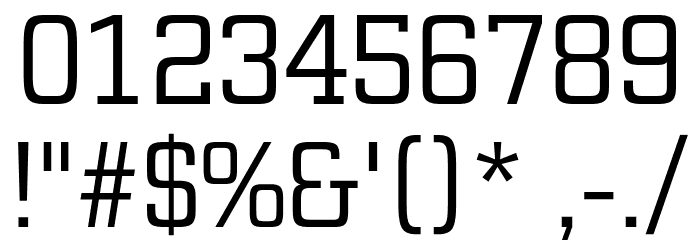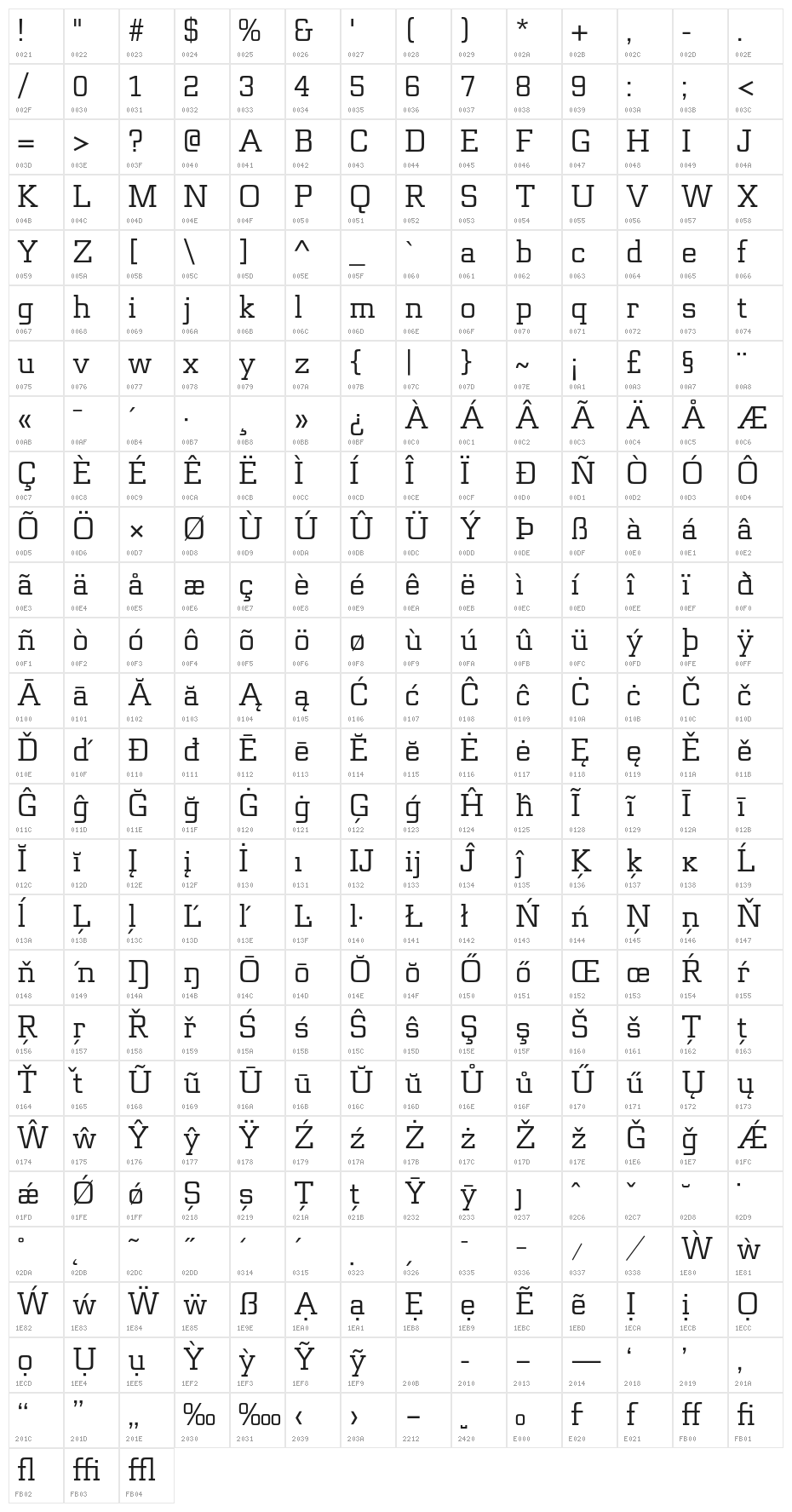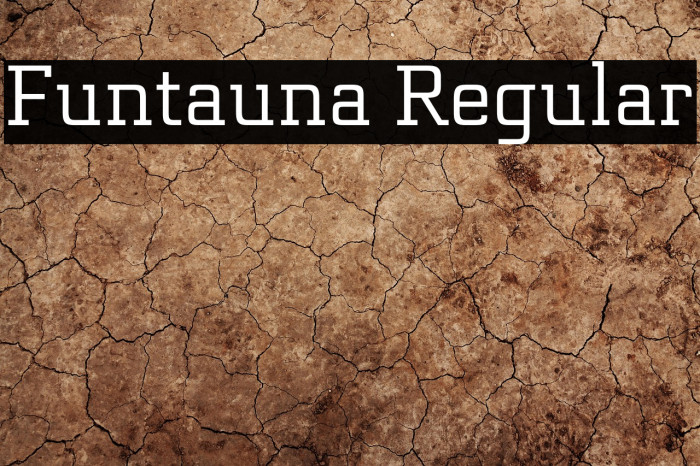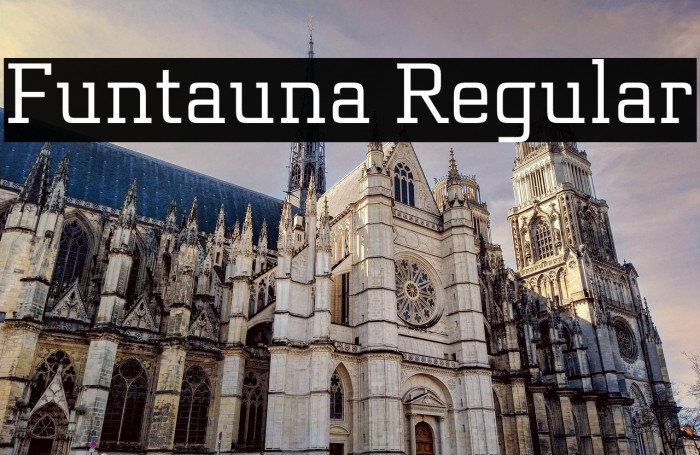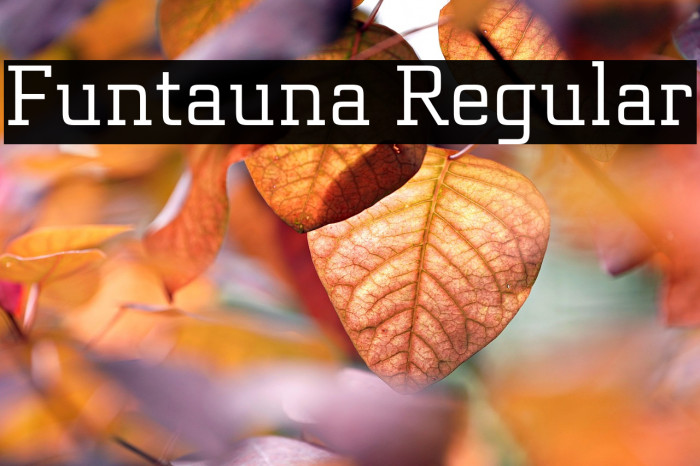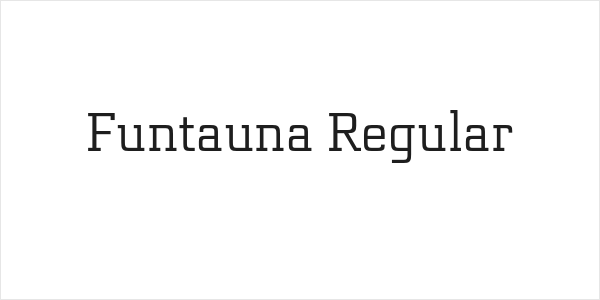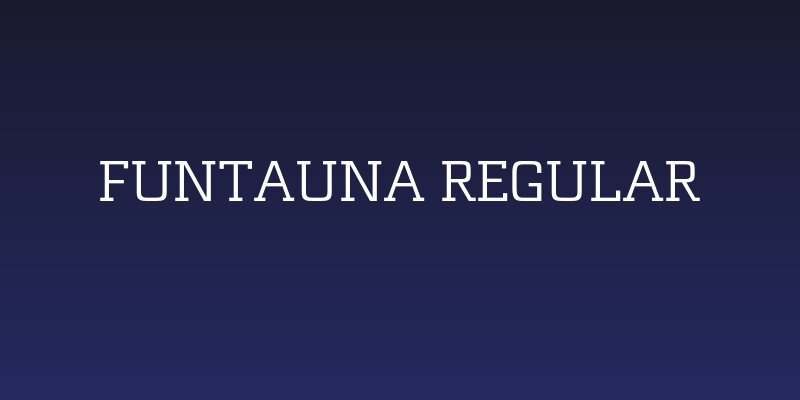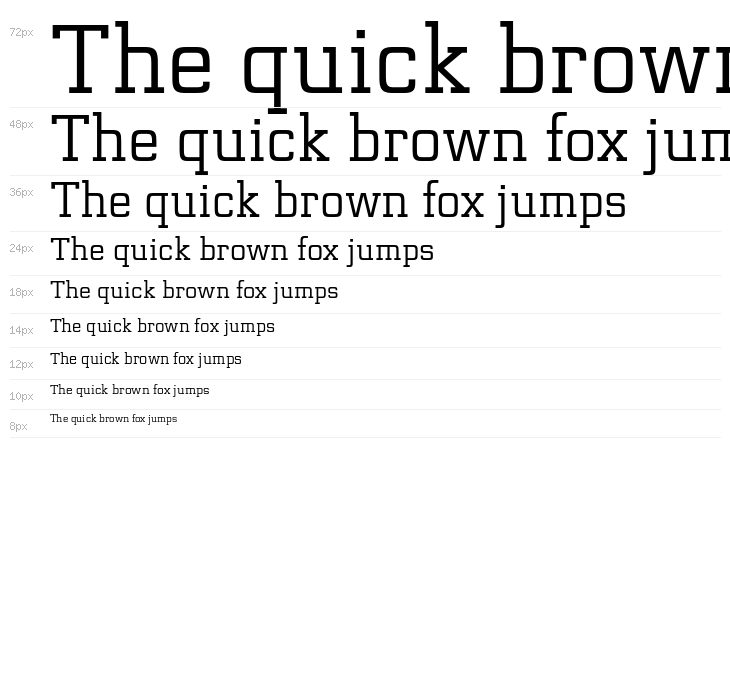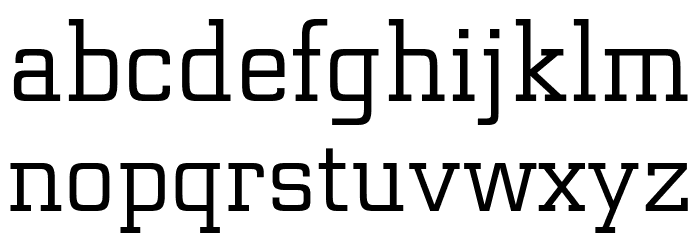
Funtauna Regular Font
Funtauna Regular Description
This font features a modern and clean design with a monospaced style, characterized by uniform character widths. The uppercase and lowercase letters are well-proportioned, with a geometric influence that adds a contemporary feel. The numerals are clear and distinct, making them highly legible. The special characters are designed to match the overall aesthetic, ensuring consistency across all glyphs. This font's simplicity and precision make it suitable for a variety of applications, from technical documents to creative projects.
| Use Case | Coding, Technical documents, Minimalist designs |
| Proposed Projects | Ideal for coding environments, technical documentation, and minimalist design projects. |